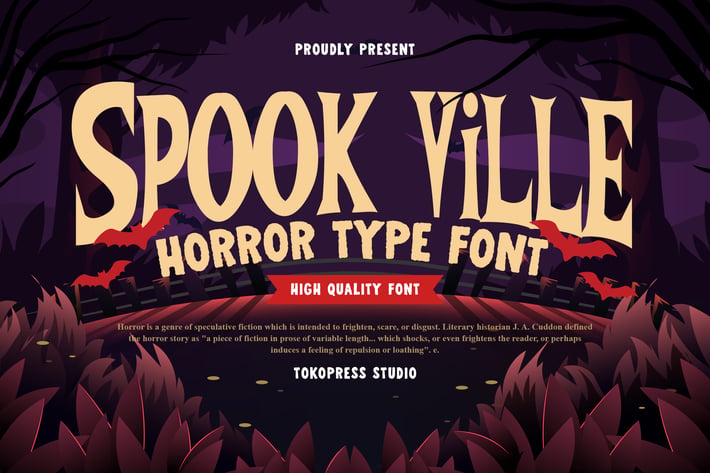
Spook Ville - Scary Font
Spook Ville is a bold, eerie display font with sharp serifs and dramatic contrast—perfect for Halloween designs, horror packaging, and spooky branding. Its theatrical, vintage-inspired style gives your titles a chilling, attention-grabbing presence.
From haunted posters to creepy snack labels and thriller book covers, Spook Ville sets the perfect horror mood. Ideal for designers who want bold, atmospheric lettering with a dark twist.
- Dark & Dramatic Style: Instantly spooky with high-impact letter shapes
- Sharp, Haunting Terminals: Evokes horror and vintage thriller energy
- Versatile Application: Use it across posters, packaging, gaming UIs, flyers, and event branding
- Emotionally Charged: Designed to amplify tension, mystery, and visual storytelling
- Crisp Readability: Balances style and legibility even in complex compositions
Step into the shadows with Spook Ville—a must-have typeface for anyone building fear-filled visuals or eerie branding. Perfect for Halloween season or year-round spooky storytelling, this font gives your designs a haunting presence they won’t forget.